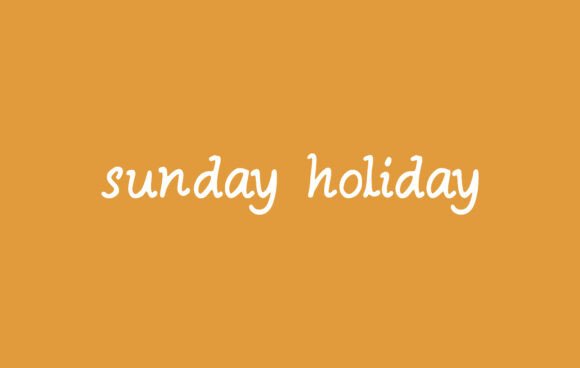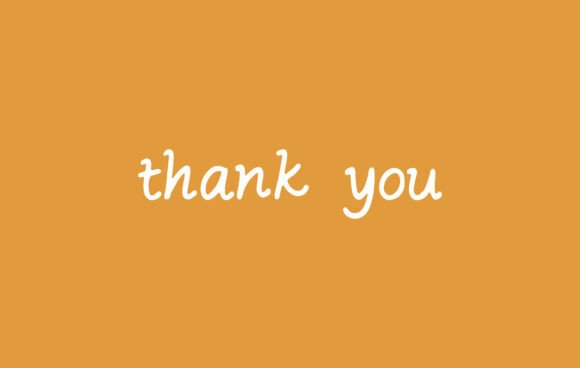
Epic Chain Font: The Ultimate Handwritten Font for Creative Designs
Are you looking for a font that can add a touch of romance and elegance to your designs? Look no further than the Epic Chain font. This authentic handwritten font is expertly designed to capture the hearts of designers and crafters alike. With its unique blend of sophistication and playfulness, Epic Chain font is the perfect choice for a wide range of creative projects.
What Makes Epic Chain Font So Special?
Epic Chain font is more than just a font – it’s an experience. With its romantic touch and authentic handwritten feel, this font has the potential to take your creative ideas to the highest level. Whether you’re designing a magazine headline, a social media post, or a wedding invitation, Epic Chain font is the perfect choice. Its legibility and versatility make it ideal for use as both title and body text.
The Epic Chain font is incredibly versatile, making it perfect for a wide range of design applications. Here are just a few ideas to get you started:
- Magazine headlines: Add a touch of elegance and sophistication to your magazine with Epic Chain font.
- Social media: Make your social media posts stand out with this unique and eye-catching font.
- Branding: Use Epic Chain font to create a cohesive and recognizable brand identity.
- Wedding invitations: Add a touch of romance and whimsy to your wedding invitations with this beautiful font.
- Cards: Create beautiful and personalized cards for any occasion with Epic Chain font.
Why Designers and Crafters Love Epic Chain Font
So, what sets Epic Chain font apart from other fonts on the market? Here are just a few reasons why designers and crafters love this font:
- Unique and authentic: Epic Chain font is a true original, with a unique and authentic handwritten feel.
- Legible: Despite its elegant and cursive feel, Epic Chain font is incredibly legible, making it perfect for use as both title and body text.
- Versatile: This font is incredibly versatile, making it perfect for a wide range of design applications.
- Elegant: Epic Chain font adds a touch of elegance and sophistication to any design.
Tips for Using Epic Chain Font
Here are a few tips for getting the most out of Epic Chain font:
- Use it sparingly: Epic Chain font is a bold and eye-catching font, so use it sparingly to avoid overwhelming your design.
- Experiment with colors: This font looks great in a variety of colors, so don’t be afraid to experiment and find the perfect hue for your design.
- Pair it with other fonts: Epic Chain font pairs well with a variety of other fonts, so try pairing it with a bold sans-serif font for a striking contrast.
In conclusion, Epic Chain font is a true gem for designers and crafters. With its unique and authentic handwritten feel, legibility, and versatility, this font is perfect for a wide range of creative projects. Whether you’re designing a magazine headline, a social media post, or a wedding invitation, Epic Chain font is the perfect choice. So why wait? Download Epic Chain font today and take your designs to the next level!
Key Features of Epic Chain Font
- Authentic handwritten font
- Romantic touch
- Legible and versatile
- Perfect for title and body text
- Ideal for magazine headlines, social media, branding, wedding invitations, cards, and more
Overall, Epic Chain font is a must-have for any designer or crafter looking to add a touch of elegance and sophistication to their designs. With its unique and authentic feel, legibility, and versatility, this font is sure to become a favorite in your design arsenal.